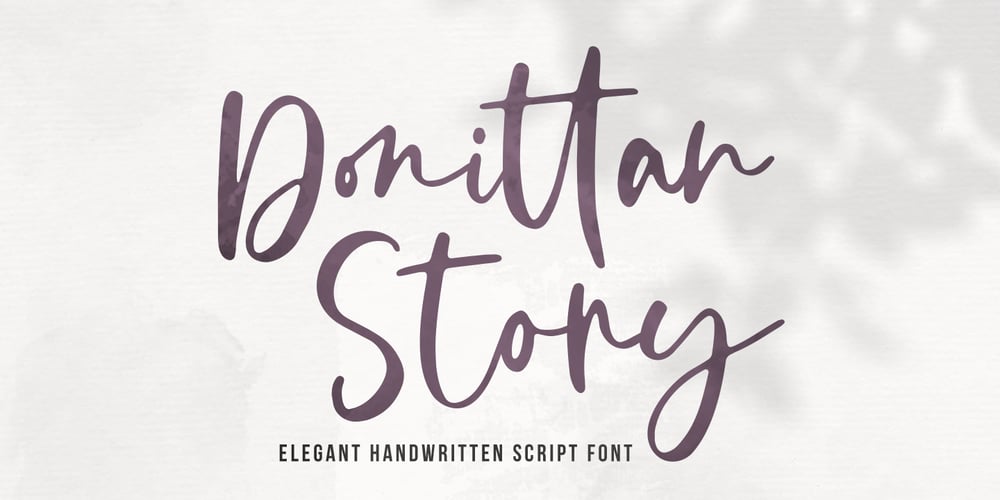
Donittan Story
Donittan Story font
Donittan Story Font Family was designed by Arif Dwi and published by Kotak Kuning Studio. Donittan Story contains 1 styles and family package options. Donittan Story is a handwritten signature script with a natural & stylish flow. This font has a multitude of natural looking ligatures in its OpenType features – making the font look as close to natural handwriting as possible. This collection of glyphs is perfect for personal branding.Donittan Story is perfect for many different projects such as logos and branding, invitations, stationery, wedding designs, social media posts, advertisements, product packaging, product designs, labels, photography, watermark, special events or anything.